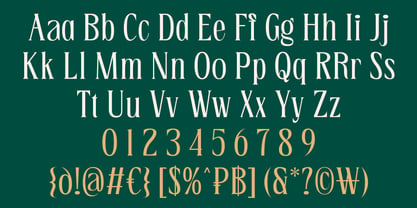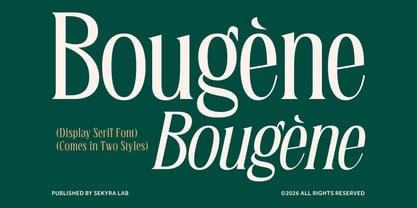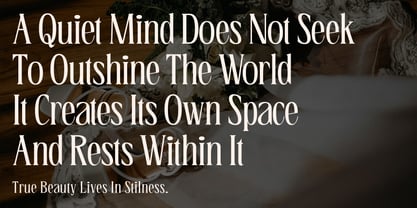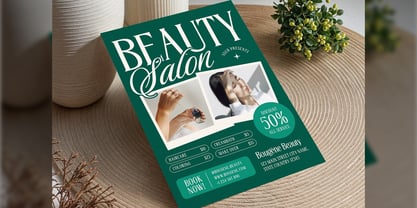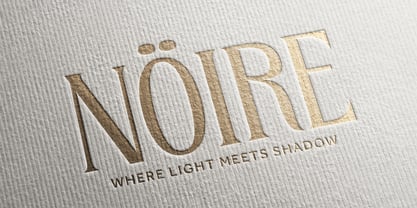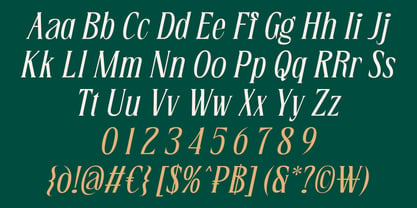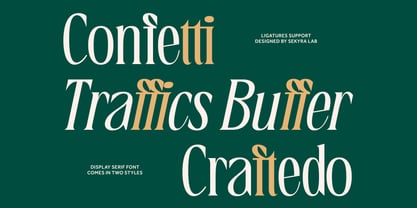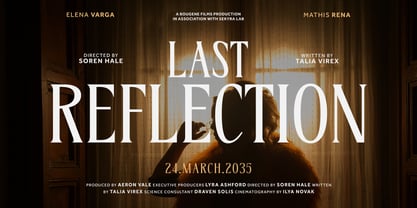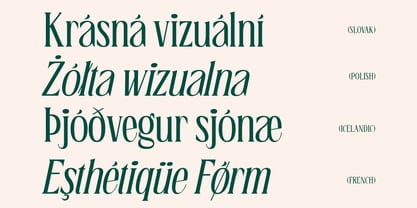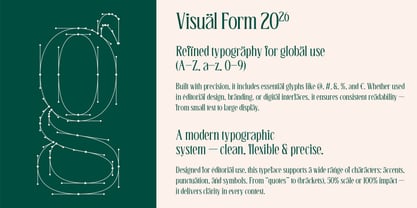
Bougene
by Sekyra Lab
The Bougene Font Family was designed by Hanif Al Irsyad and published by Sekyra Lab. Bougene contains 2 styles and family package options. More about this family
Bougene by Sekyra Lab is a refined display serif font designed for sophistication and modern luxury. Featuring graceful curves and high-contrast strokes, it offers distinctive letterforms. Bougene includes Regular and Slanted styles for dynamic compositions, maintaining elegance. The Slanted style adds subtle movement and sophistication, suitable for editorial and branding. With stylish terminals, smooth transitions, and refined proportions, Bougene blends classic serif elements with a contemporary edge for a timeless yet fresh look.
Designers: Hanif Al Irsyad
Foundry: Sekyra Lab